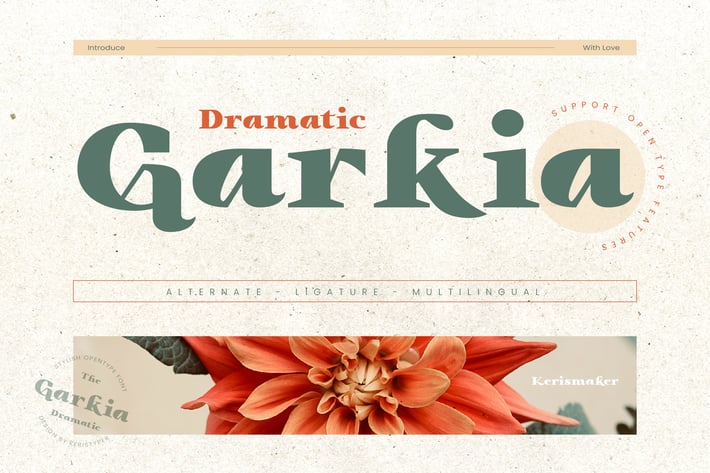
Garkia Font
Garkia is an elegant serif font that exudes drama and sophistication. With its sleek lines and beautiful curves, it is perfect for creating striking headlines, editorial designs, and branding materials that demand attention. The bold yet refined look of Garkia makes it an excellent choice for high-end fashion, luxury, and beauty brands.
Standard, Uppercase & Lowercase
Multilingual : ä ö ü Ä Ö Ü ß ¿ ¡
Alternate & Ligature